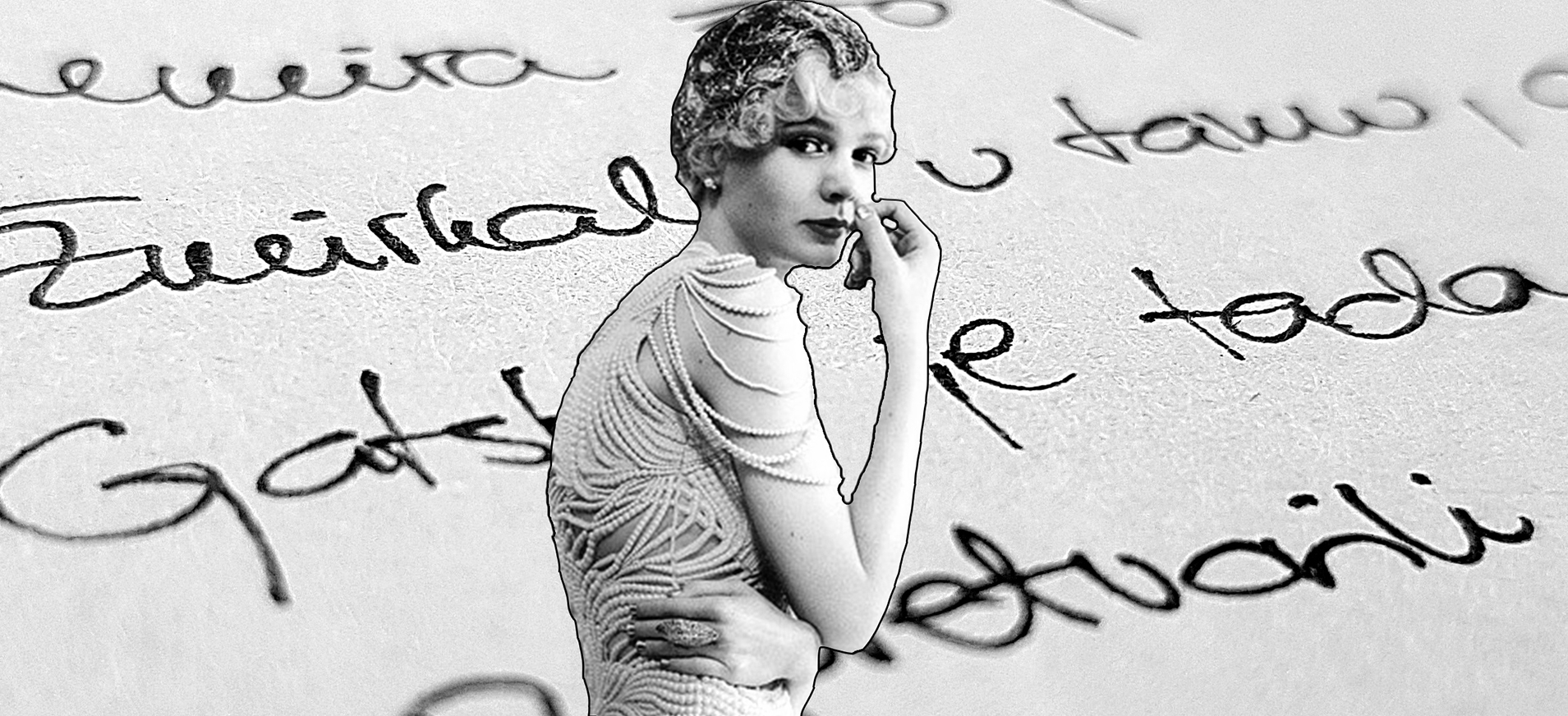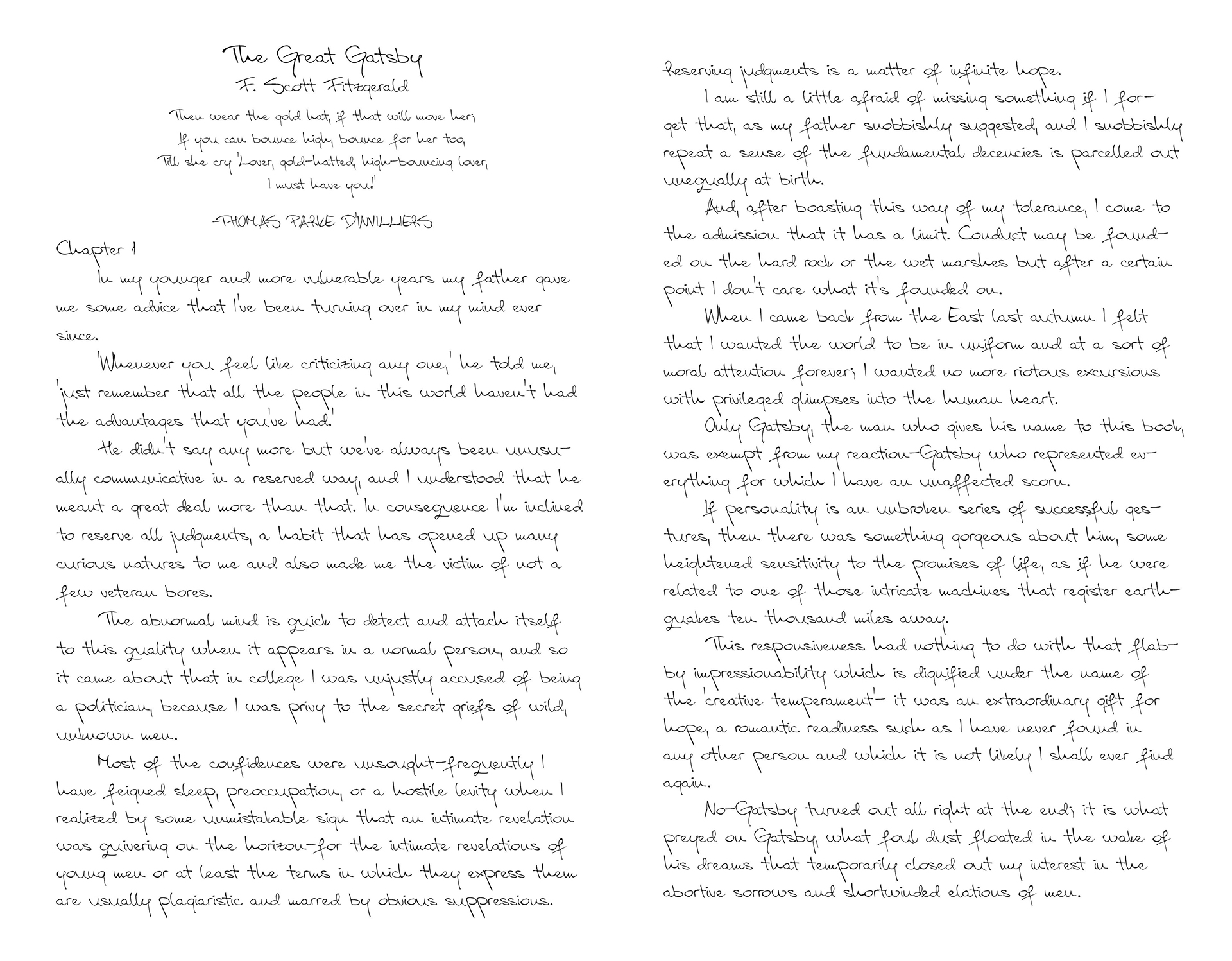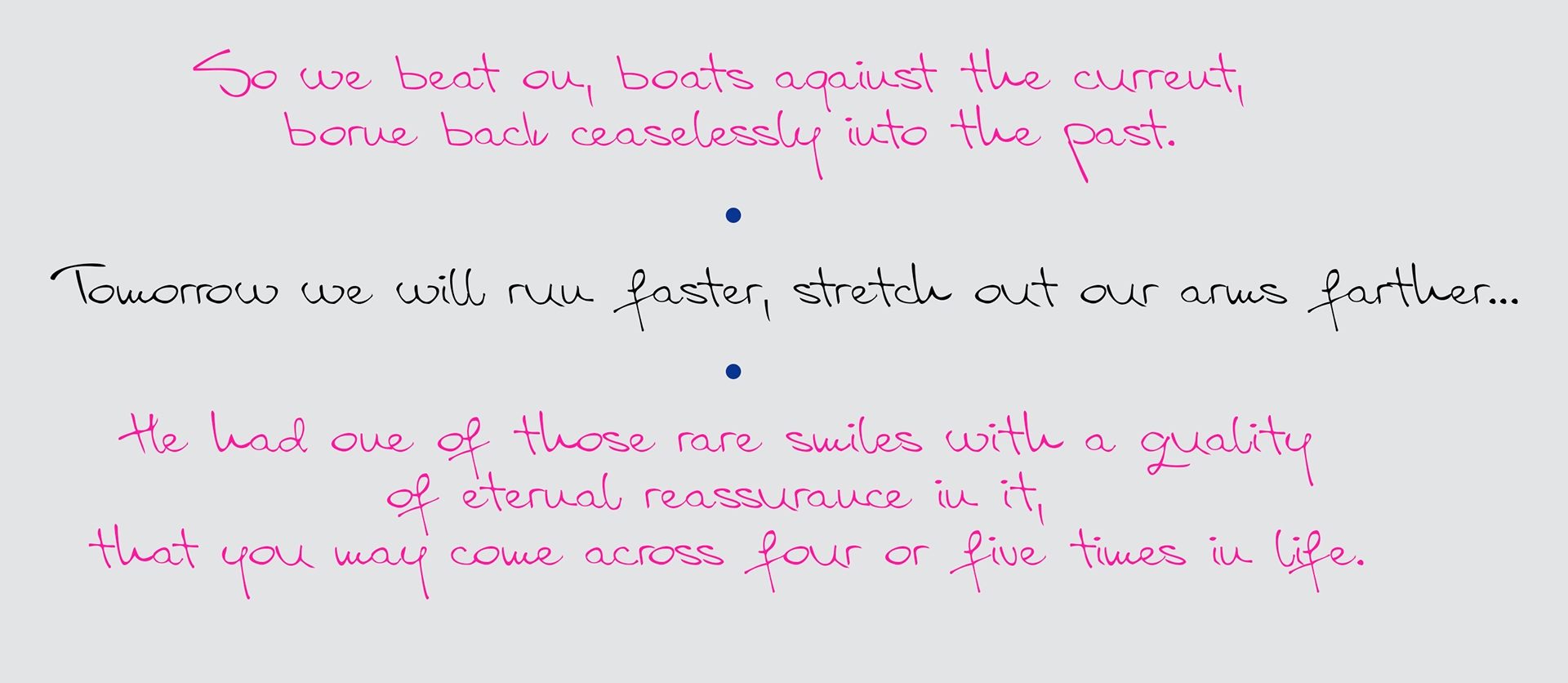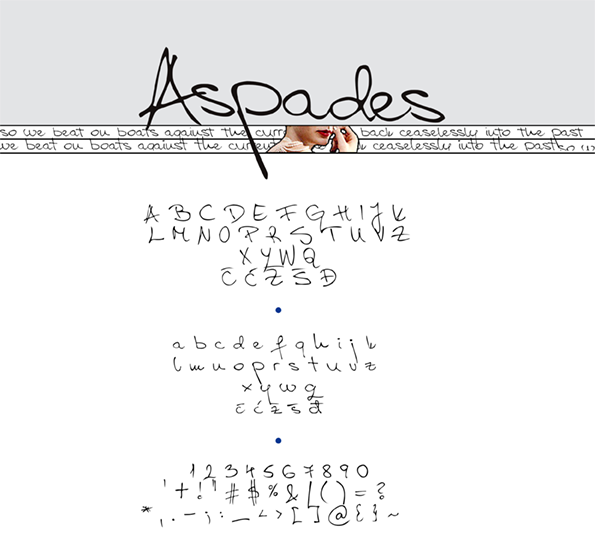
Aspades Font: A Handwritten Typeface Inspired by F. Scott Fitzgerald’s The Great Gatsby
In the world of typography, fonts play a crucial role in conveying the tone and personality of a brand or design. For crafters and designers, finding the perfect font can be a daunting task. However, if you’re looking for a unique and elegant handwritten font, look no further than Aspades Font. In this article, we’ll dive into the story behind Aspades Font, its features, and why it’s a must-have for designers and crafters.
The Story Behind Aspades Font
Aspades Font is a beautiful handwritten font based on the creator’s own handwriting. What makes this font truly special is that all the text and quotes used to develop it are from F. Scott Fitzgerald’s classic novel, The Great Gatsby. The font’s design is inspired by the elegance and sophistication of the Roaring Twenties, making it perfect for designs that require a touch of luxury and refinement.
Features of Aspades Font
Aspades Font boasts a range of features that make it an excellent choice for designers and crafters. Some of its notable features include:
- Handwritten elegance: Aspades Font is a handwritten font that exudes elegance and sophistication, making it perfect for designs that require a personal touch.
- Unique character set: The font features a unique character set that is inspired by the text and quotes from The Great Gatsby, giving it a distinctive and exclusive feel.
- Easy to read: Despite its handwritten nature, Aspades Font is easy to read, making it suitable for use in a variety of design projects, from digital media to print materials.
- Versatile: Aspades Font can be used in a range of design projects, from luxury branding to wedding invitations, and from social media graphics to packaging design.
Why Designers and Crafters Love Aspades Font
Designers and crafters love Aspades Font for several reasons. Firstly, its unique and elegant design makes it stand out from more traditional fonts. Secondly, its versatility means that it can be used in a wide range of design projects, from digital media to print materials. Finally, the font’s connection to The Great Gatsby adds a touch of literary sophistication, making it perfect for designs that require a level of cultural and intellectual depth.
Using Aspades Font in Your Designs
Using Aspades Font in your designs is easy. Here are a few tips to get you started:
- Pair it with a sans-serif font: Pairing Aspades Font with a sans-serif font creates a beautiful contrast that adds visual interest to your design.
- Use it for headings and titles: Aspades Font is perfect for headings and titles, where its elegant and sophisticated design can really shine.
- Experiment with colors: Aspades Font looks great in a range of colors, from classic black and white to bold and bright hues.
In conclusion, Aspades Font is a beautiful and elegant handwritten font that is perfect for designers and crafters looking for a unique and sophisticated typeface. Its connection to The Great Gatsby adds a touch of literary sophistication, making it perfect for designs that require a level of cultural and intellectual depth. With its versatility, ease of use, and range of features, Aspades Font is a must-have for anyone looking to add a touch of luxury and refinement to their designs.